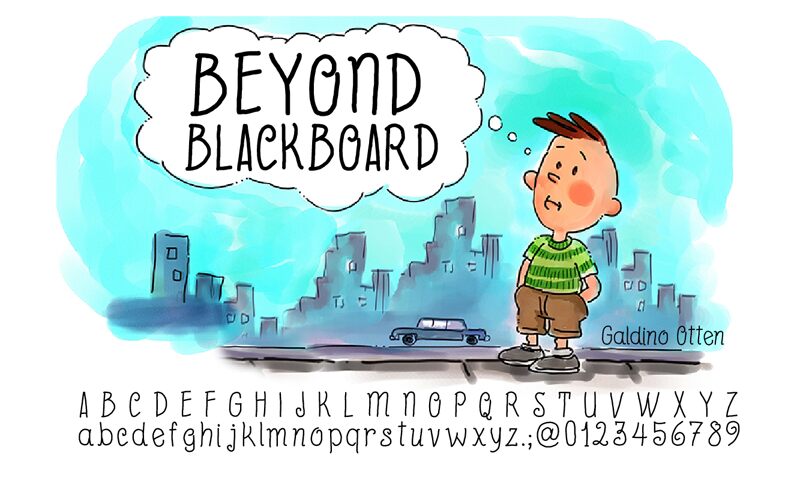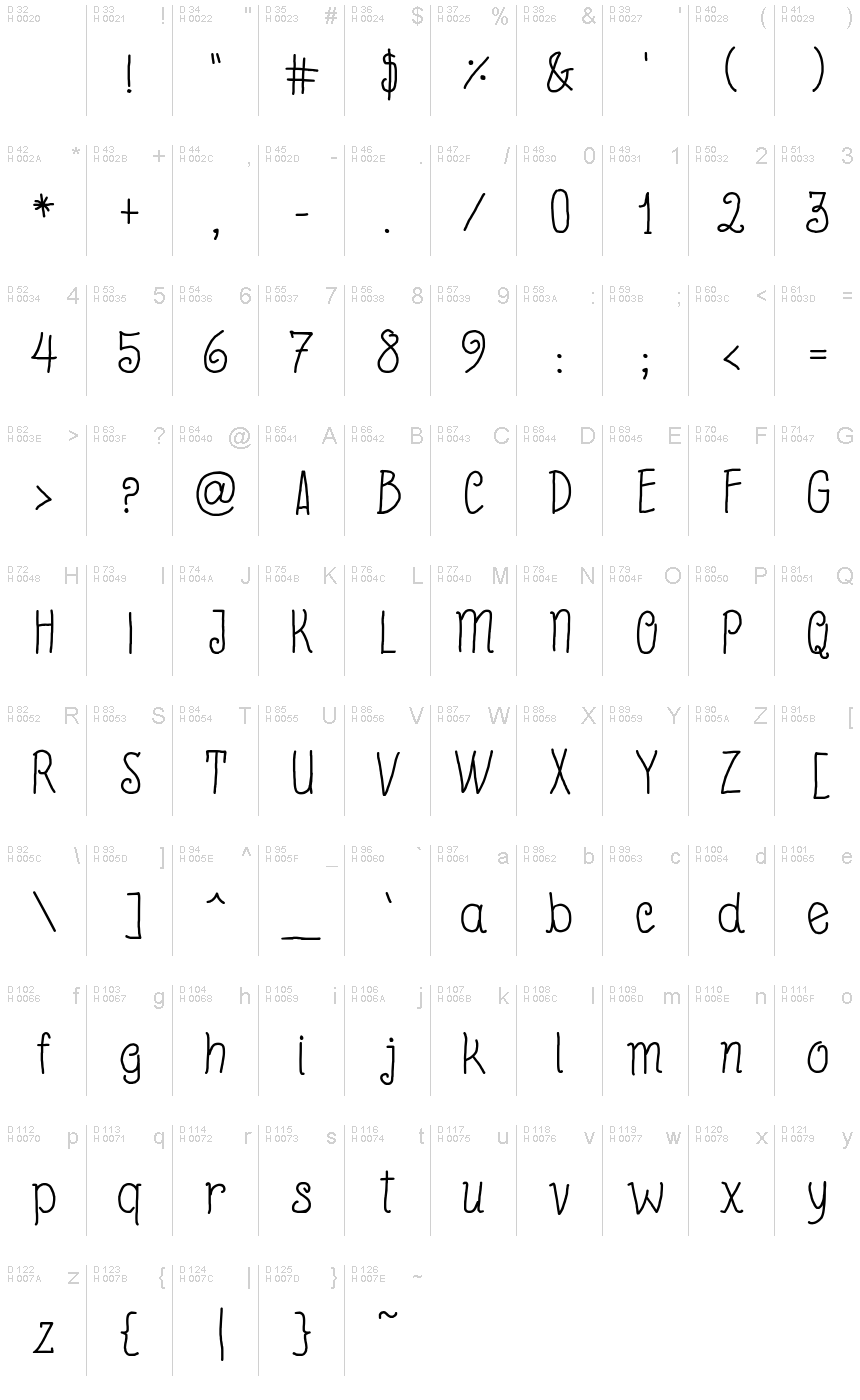
Beyond Blackboard
Beyond Blackboard, designed by Galdino Otten Fonts, beckons with its semi-light handwritten charm that captures the essence of personal touch in digital typography. The font's aesthetic is a harmonious blend of casual elegance and approachable warmth, making it a delightful choice for projects seeking to convey authenticity and individuality.
The deliberate irregularities in the letterforms mimic the natural variation found in human handwriting, adding character and depth to any text. Its semi-light weight ensures legibility while maintaining a subtle lightness, perfect for designs that require a gentle but distinct presence.
Whether you're crafting an intimate invitation, branding for artisanal products, or engaging educational materials that call back to the familiar look of chalk on a blackboard, Beyond Blackboard offers versatility and stylistic flair. Its appearance showcases how it stands out as both readable and engaging—a font not just for words, but for weaving stories.